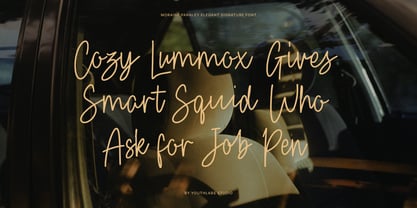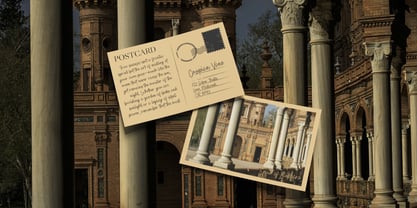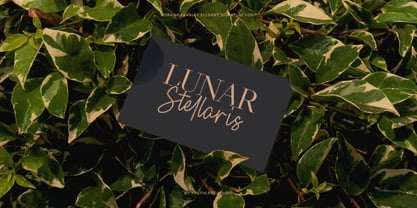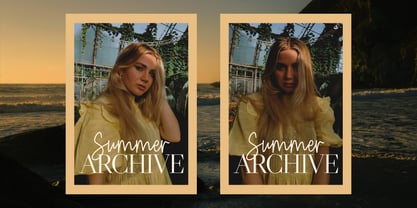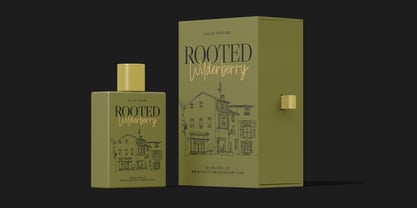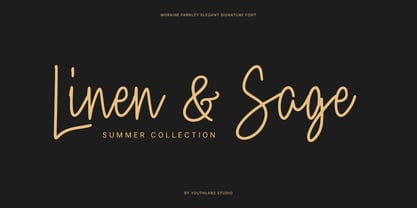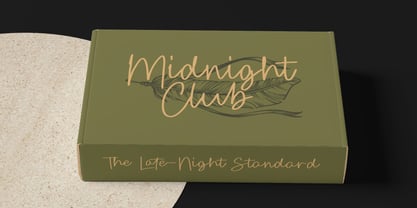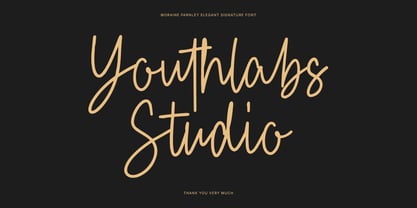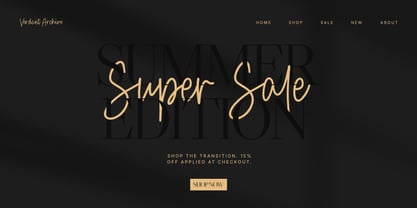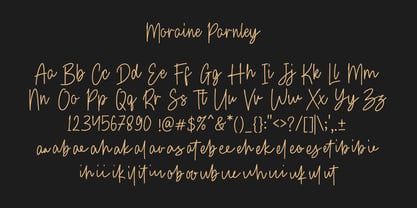
Moraine Parnley
Moraine Parnley is an elegant signature font that strikes the perfect balance between artistic flair and professional poise. Designed by Youthlabs Studio, this typeface features elongated strokes and a fluid, rhythmic flow that mimics the effortless motion of a fountain pen. It is specifically crafted for projects that require a touch of exclusivity and personal connection. Whether you are building a premium lifestyle brand, designing sophisticated event stationery, creating high-end product packaging, or developing a stylish personal watermark, Moraine Parnley adds a refined, human element that feels both timeless and modern. ✨ Key Features Slim Elegant Strokes Authentic Signature Flow Elongated Character Extensions Refined Luxury Aesthetic High-Contrast Script Design Hand-Crafted Organic Feel